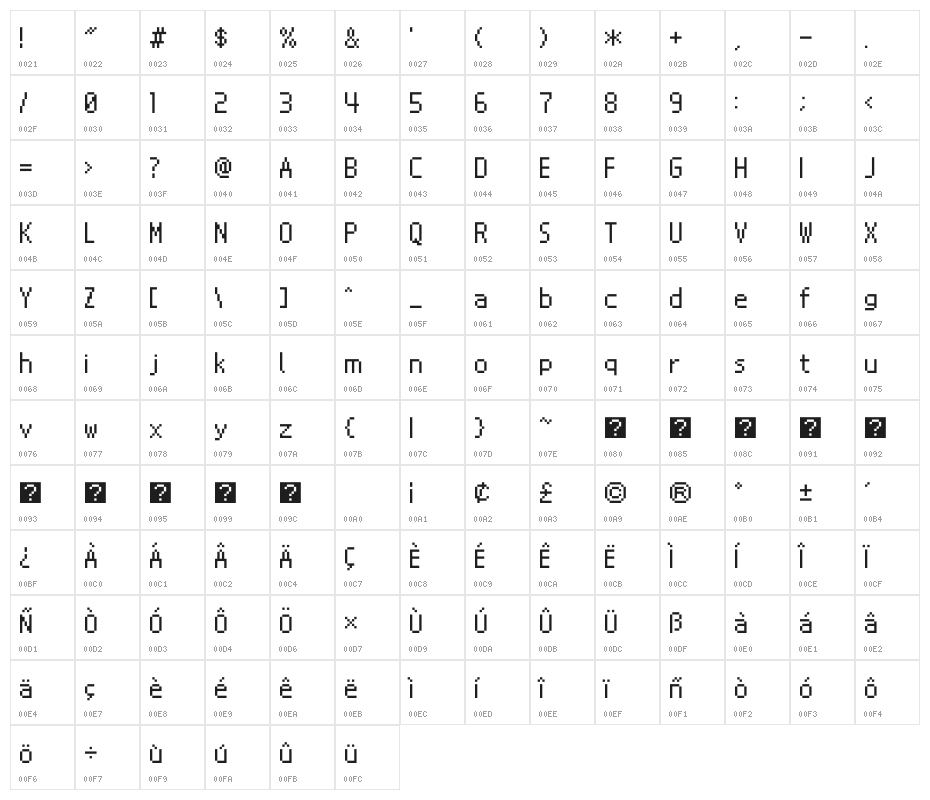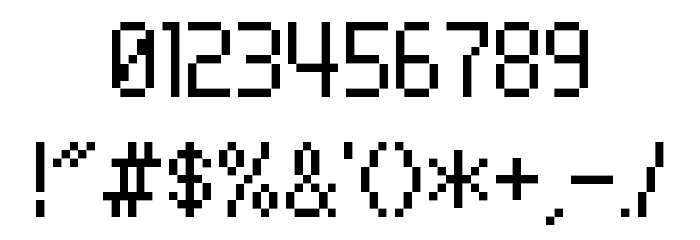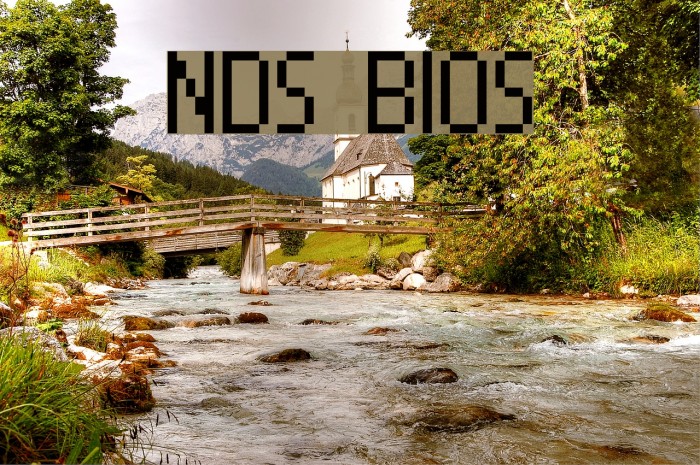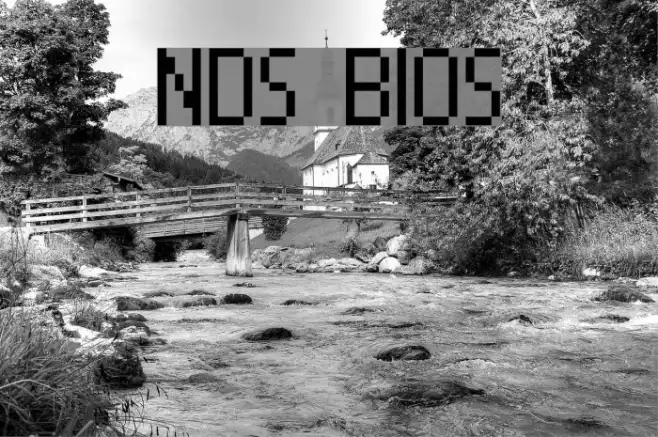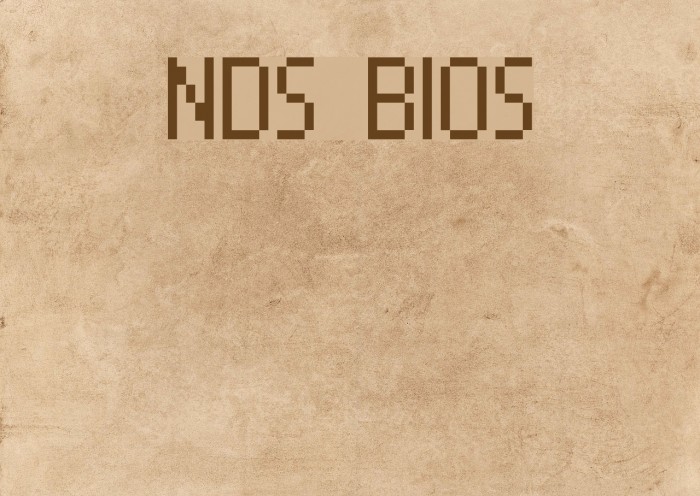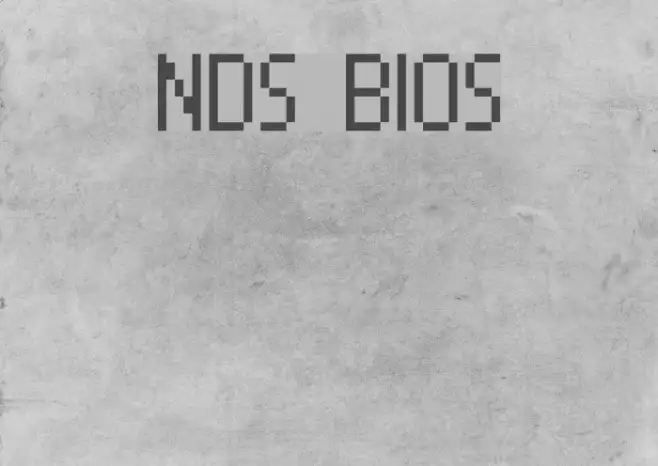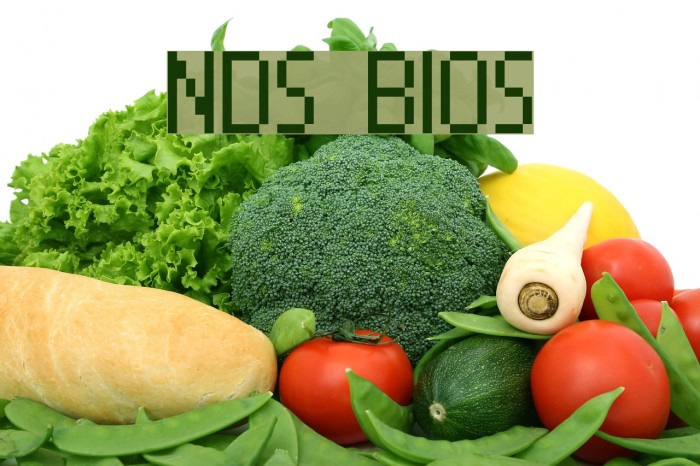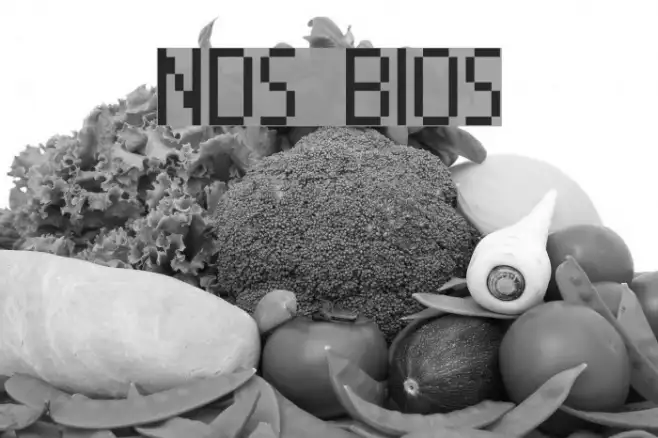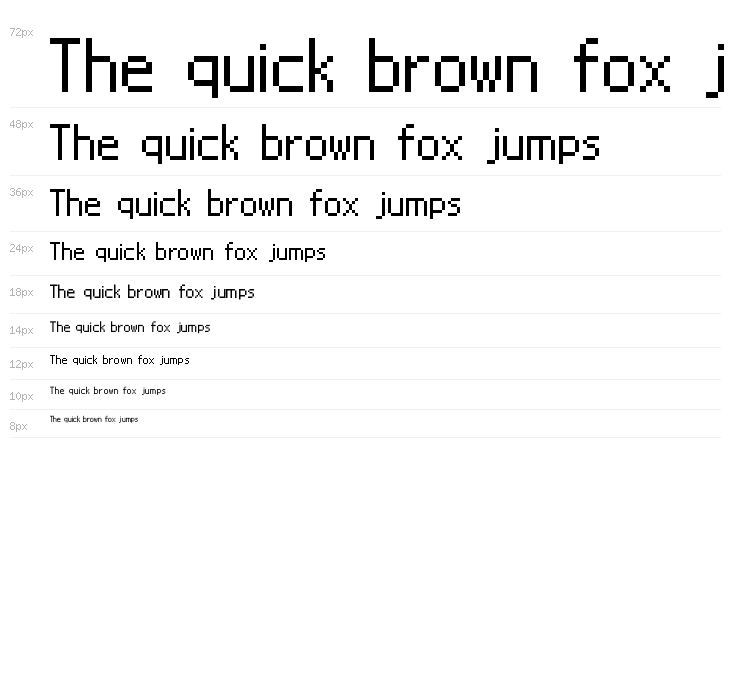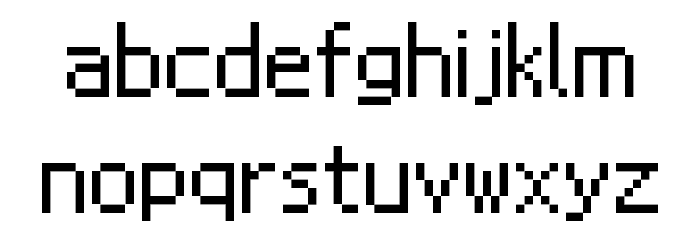
NDS BIOS Font
NDS BIOS Description
This font features a pixelated, blocky design reminiscent of classic video game aesthetics. Each character is constructed with a grid-like precision, giving it a retro, digital feel. The uppercase and lowercase letters maintain a consistent height and width, creating a uniform appearance. Numbers and special characters follow the same pixelated style, ensuring visual coherence across all elements. The font's simplicity and clarity make it highly legible, even at smaller sizes, while its distinct style adds a nostalgic charm.
| Use Case | Logos, Headlines, Digital Art |
| Proposed Projects | Ideal for retro video game designs, digital art projects, or any creative work that seeks to evoke a sense of nostalgia for early computing and gaming eras. |